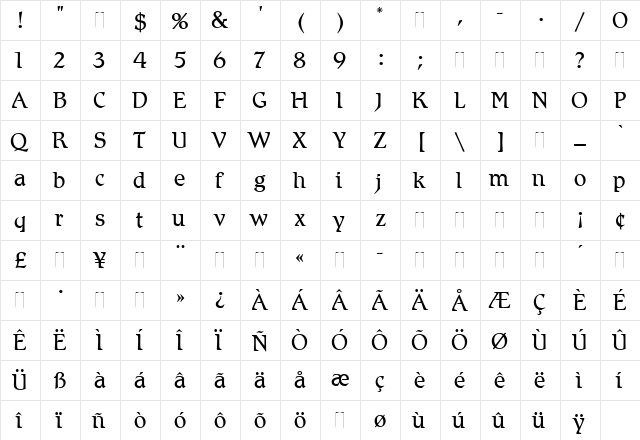
Romic Light Regular Font Preview
Romic Light Regular
Design Context for Romic Light Typeface
Romic Light offers clean, dependable letterforms without strong stylistic allegiance, making it a practical choice for designers who need flexibility. Its slender proportions lend an understated elegance to any composition.